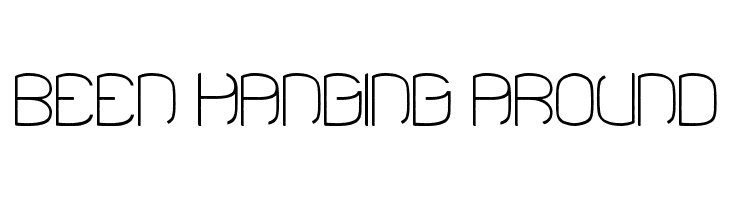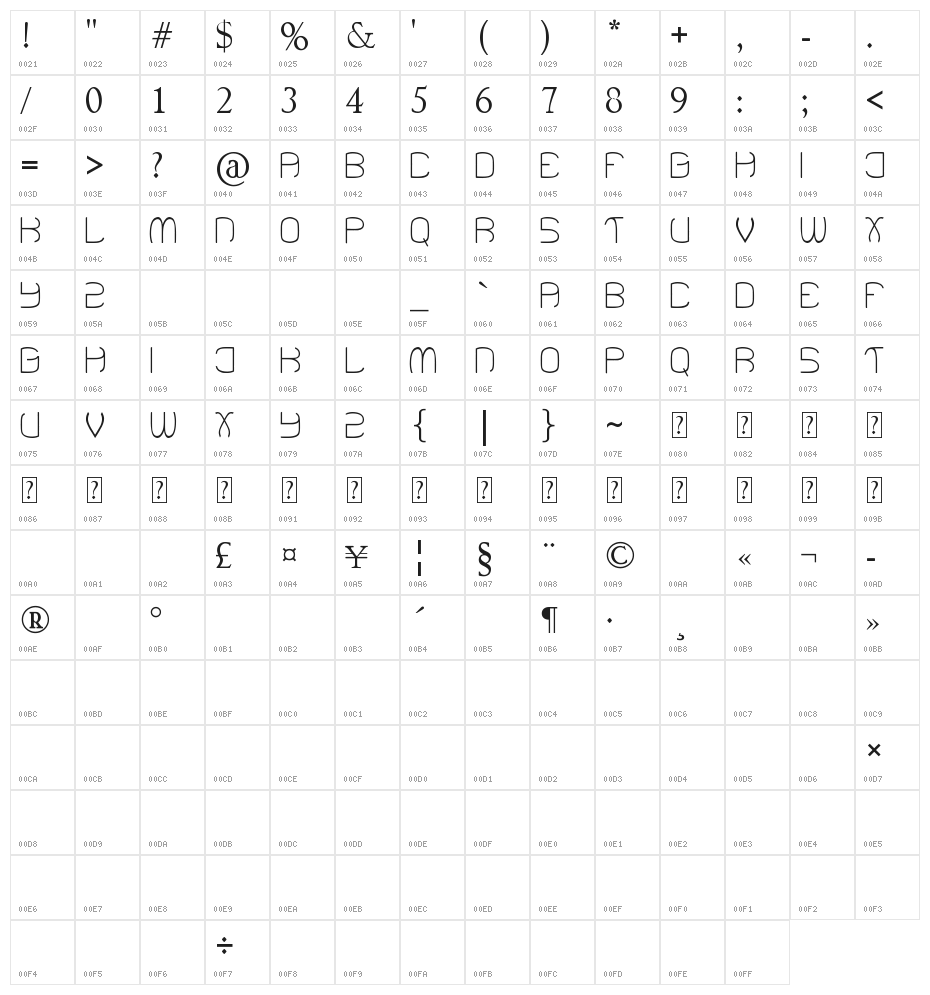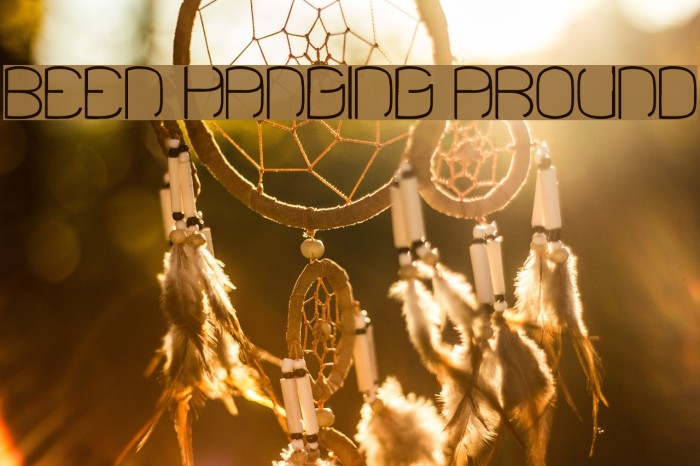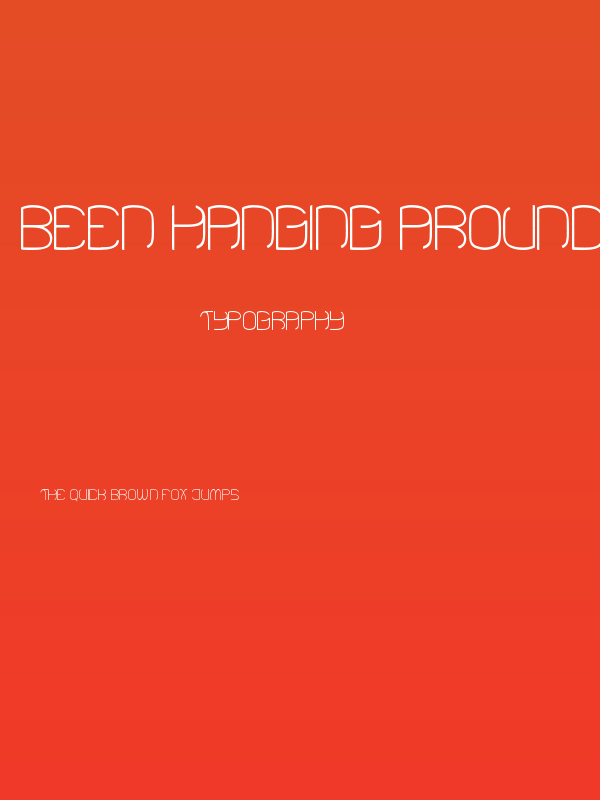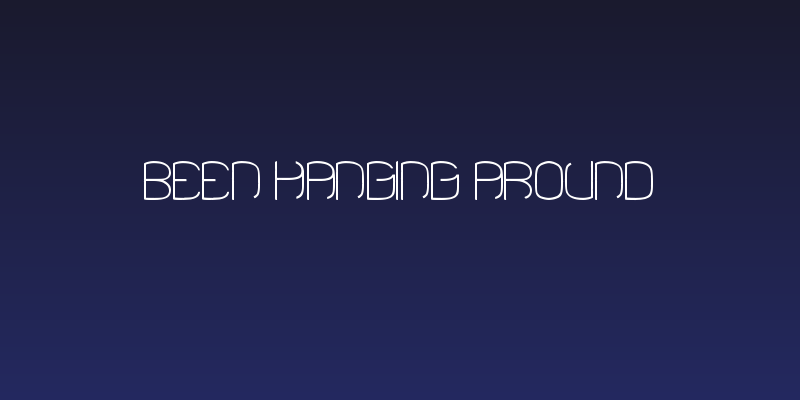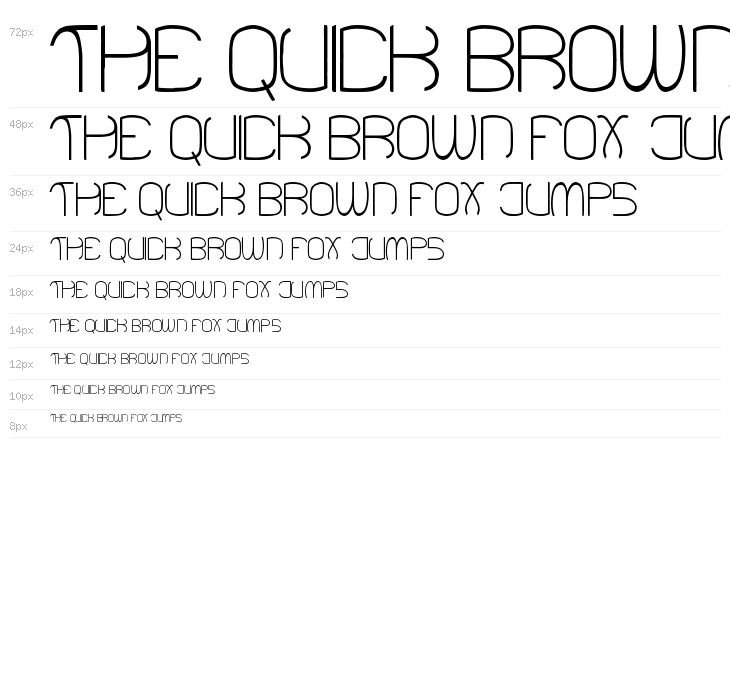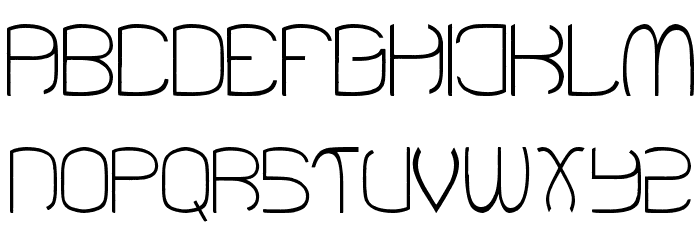
Been Hanging Around Font
Been Hanging Around Description
This font features a unique, artistic design with elongated and curved strokes that give it a modern and slightly futuristic appearance. The uppercase letters have a distinct geometric style, with some characters incorporating sharp angles and others featuring smooth, rounded edges. The lowercase letters maintain a consistent style, complementing the uppercase with their sleek and streamlined forms. Numbers are bold and clear, ensuring readability while maintaining the font's overall aesthetic. Special characters are designed with the same attention to detail, making them cohesive with the rest of the character set. This font's distinct style makes it suitable for creative and contemporary projects.
| Proposed Projects | Ideal for branding, logos, posters, and modern web design projects. |